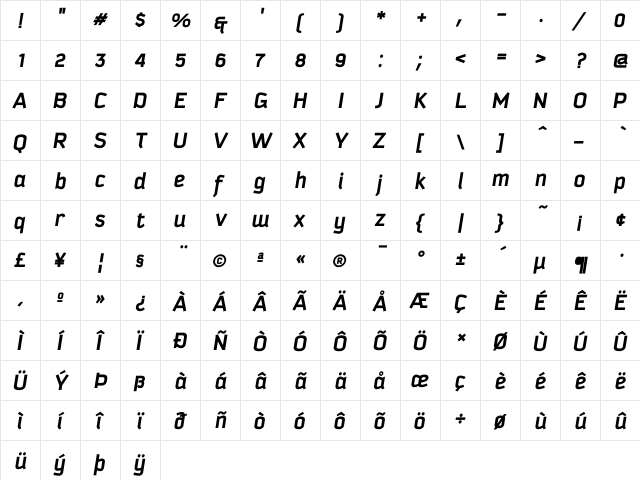
Kautiva Bold Italic
Design Context for Kautiva Typeface
Kautiva is a composed and adaptable typeface that performs quietly and consistently across a wide range of design contexts. Its italic angle brings a sense of urgency and motion to the letterforms. Its bold stroke weight gives it real presence on the page.
Pro Tip: Try Kautiva for annotation and caption copy alongside an upright companion — the contrast in angle creates a dynamic but ordered typographic system.